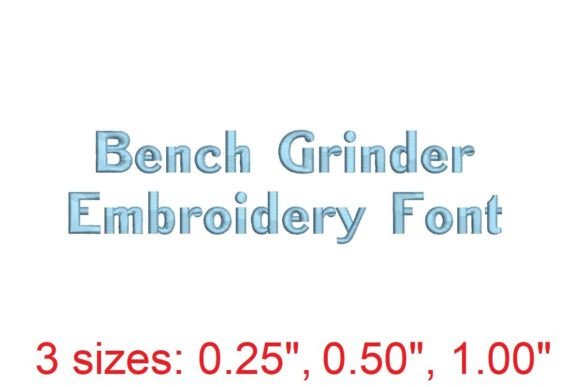
Introducing the Bench Grinder Embroidery Font
When it comes to embroidery design, the right font can make all the difference. The Bench Grinder Embroidery Font is a versatile and professional choice for anyone looking to elevate their embroidery projects. Whether you're a seasoned embroiderer or just starting out, this font offers a unique blend of style and functionality that can transform your creative process.
What Is the Bench Grinder Embroidery Font?
The Bench Grinder Embroidery Font is a collection of meticulously crafted characters designed specifically for use in machine embroidery. It features a clean, bold aesthetic that works well with both text and decorative elements. This font is ideal for personalizing garments, creating monograms, and embellishing home decor items. Its clarity and readability ensure that your designs remain sharp and legible, even when scaled up or down.
Why Choose Bench Grinder?
One of the key reasons people choose the Bench Grinder Embroidery Font is its versatility. It can be used across a wide range of applications, from custom apparel to signage and more. Additionally, the font is designed with precision, making it easy to work with on various embroidery machines. Its compatibility with multiple file formats also makes it accessible to a broad audience, including hobbyists and professionals alike.
Common Mistakes When Using Bench Grinder
While the Bench Grinder Embroidery Font is a great tool, there are several common mistakes that users may make when choosing or using it. One of the most frequent errors is not considering the size and stitch requirements before downloading. Each character has specific dimensions and stitch counts, and failing to understand these can lead to poor results or wasted time.
Another mistake is assuming that one size will work for all projects. In reality, the Bench Grinder Embroidery Font comes in different sizes, each with its own set of characteristics. For example, the A and a characters in each size provide a summary of what's available, but the full set includes 156 letters. It’s important to review the detailed specifications before making a purchase.
How These Mistakes Can Affect Your Work
Misunderstanding the size and stitch details can lead to subpar embroidery outcomes. If you use an incorrect size, your text may appear too small or too large, which can affect the overall look of your project. Similarly, mismatched stitch counts can cause issues with density and appearance, leading to frustration and inefficiency.
Practical Tips to Avoid Common Pitfalls
Also, consider your project needs before selecting a font. If you're working on a garment, you'll want a font that maintains clarity at smaller sizes. For larger projects like banners or signs, a bolder font may be more appropriate. Always test the font on a sample piece before committing to a full project.
What to Check Before Using Bench Grinder
Before diving into your next embroidery project with the Bench Grinder Embroidery Font, take a few moments to verify a few key points. First, ensure that your embroidery machine is compatible with the file formats included. Second, review the stitch count and size details to determine if they align with your project goals.
It’s also wise to check customer reviews and ratings if available. These can provide valuable insights into how others have used the font and whether they encountered any issues. Lastly, don’t forget to explore the additional resources provided, such as the sewing info PDF, which can enhance your understanding and usage of the font.
Conclusion
The Bench Grinder Embroidery Font is a powerful tool for anyone looking to create high-quality embroidery designs. By understanding its features, avoiding common mistakes, and following best practices, you can unlock its full potential and achieve stunning results. Whether you're a beginner or a professional, taking the time to learn about and properly use this font will greatly enhance your embroidery experience.